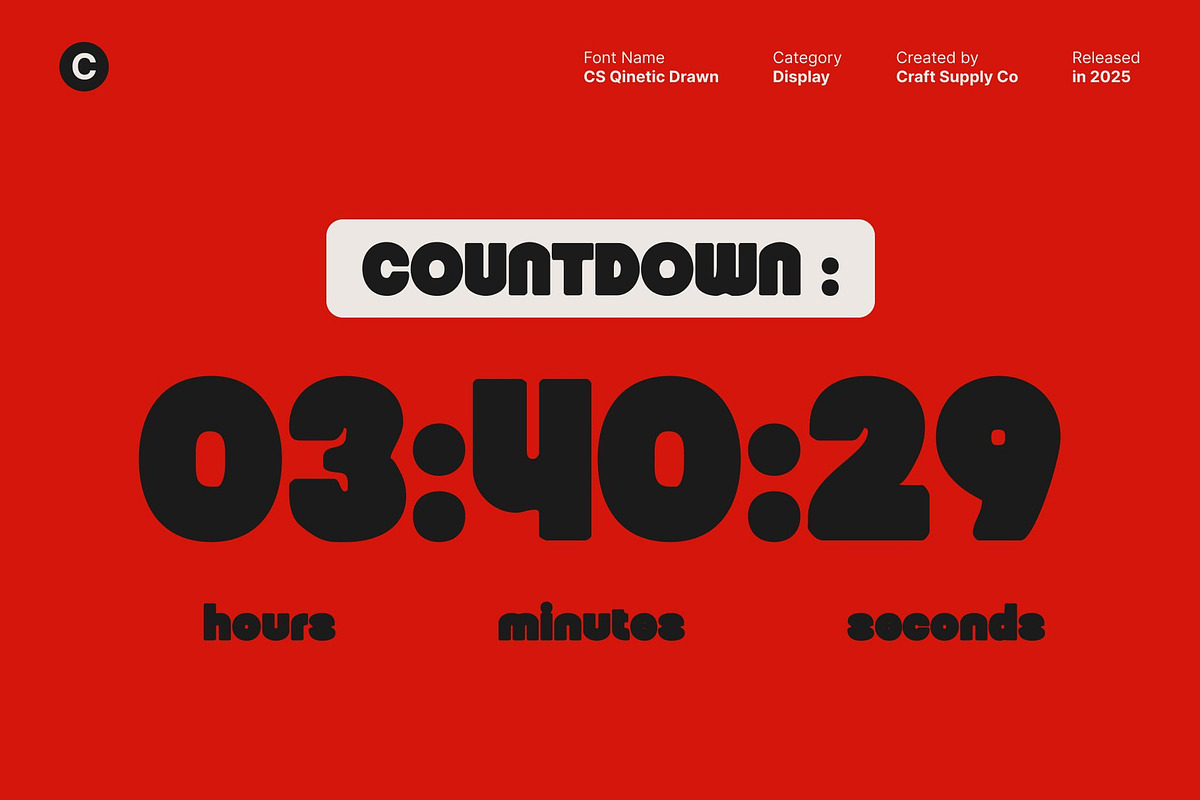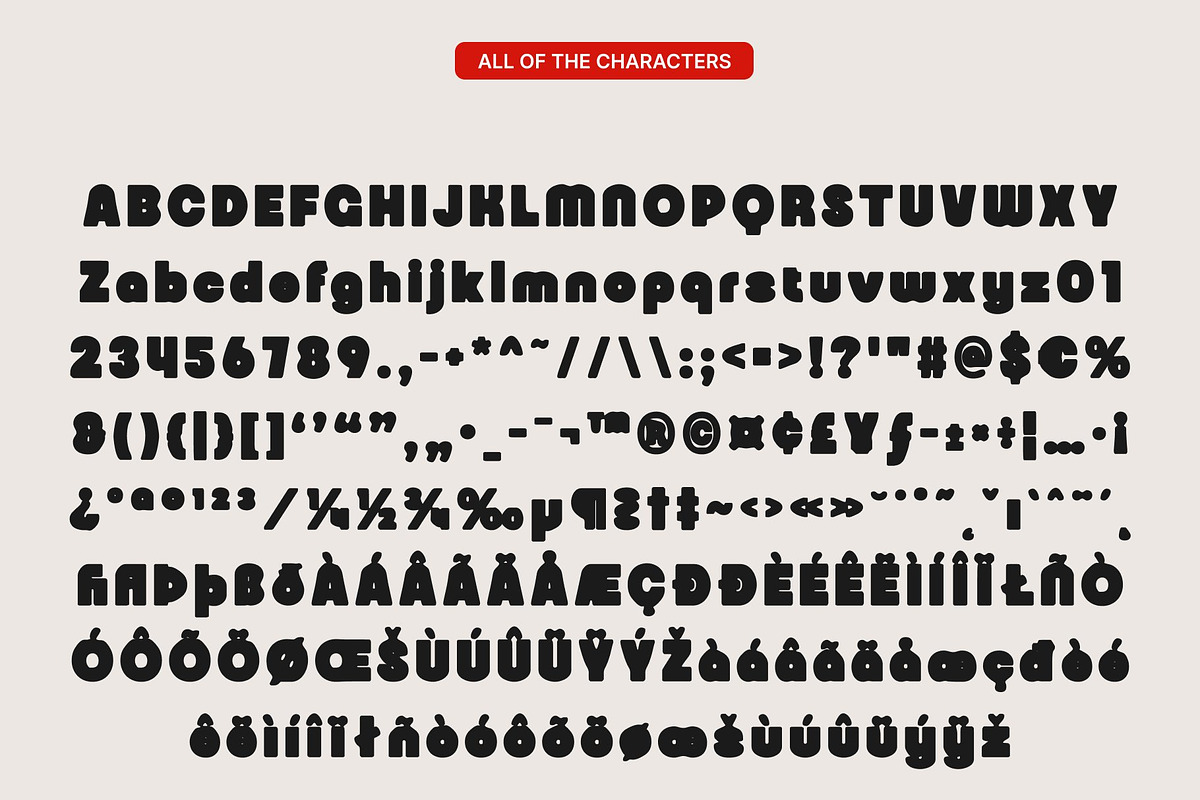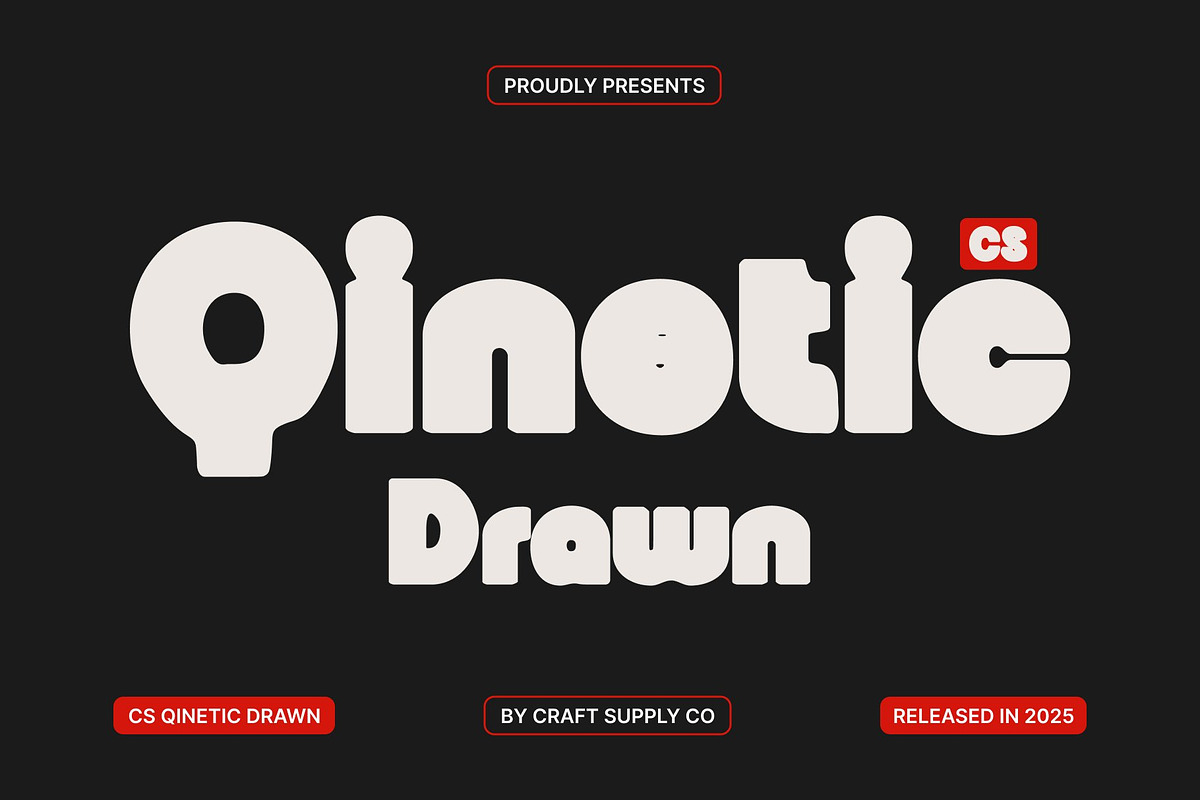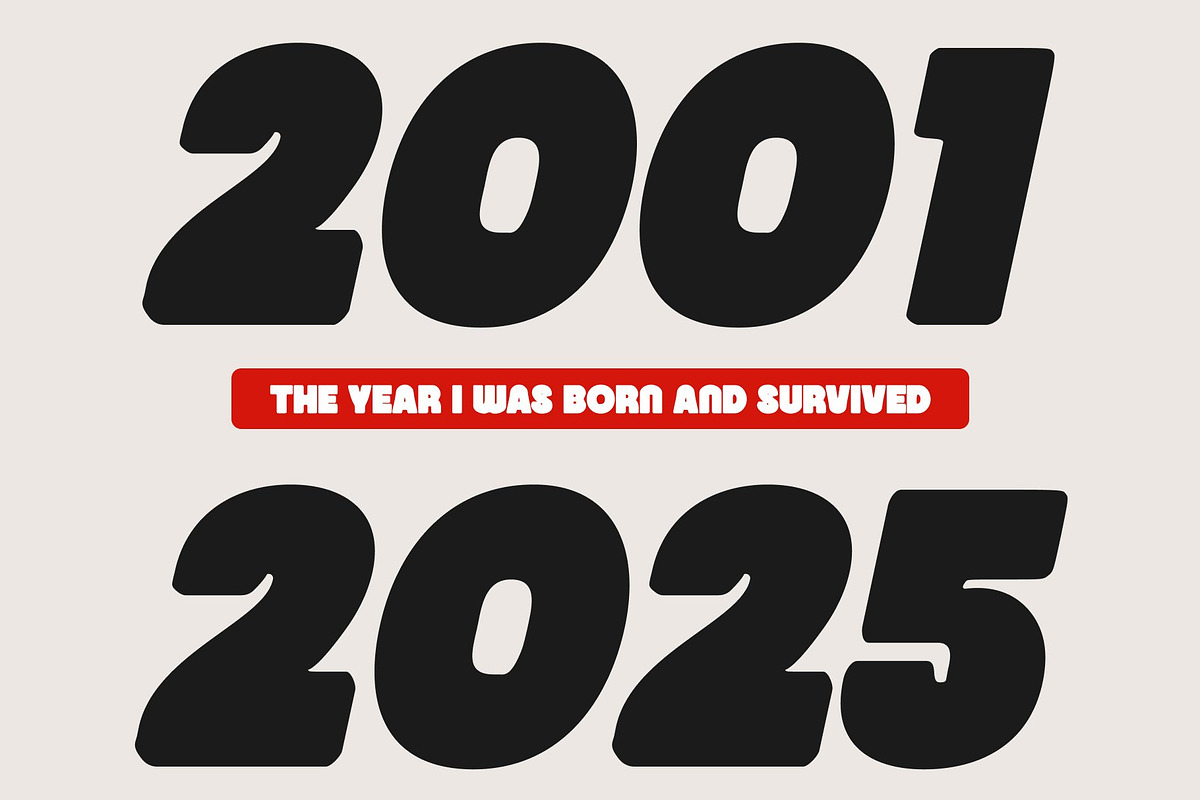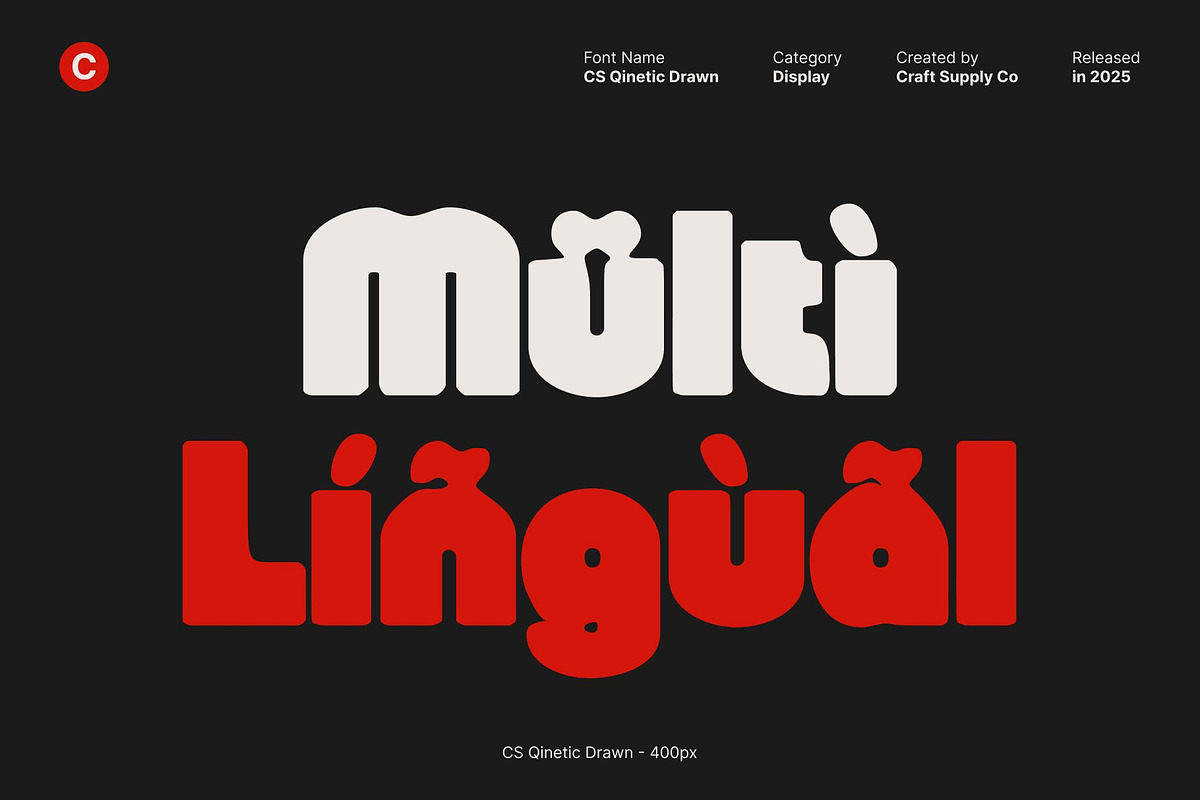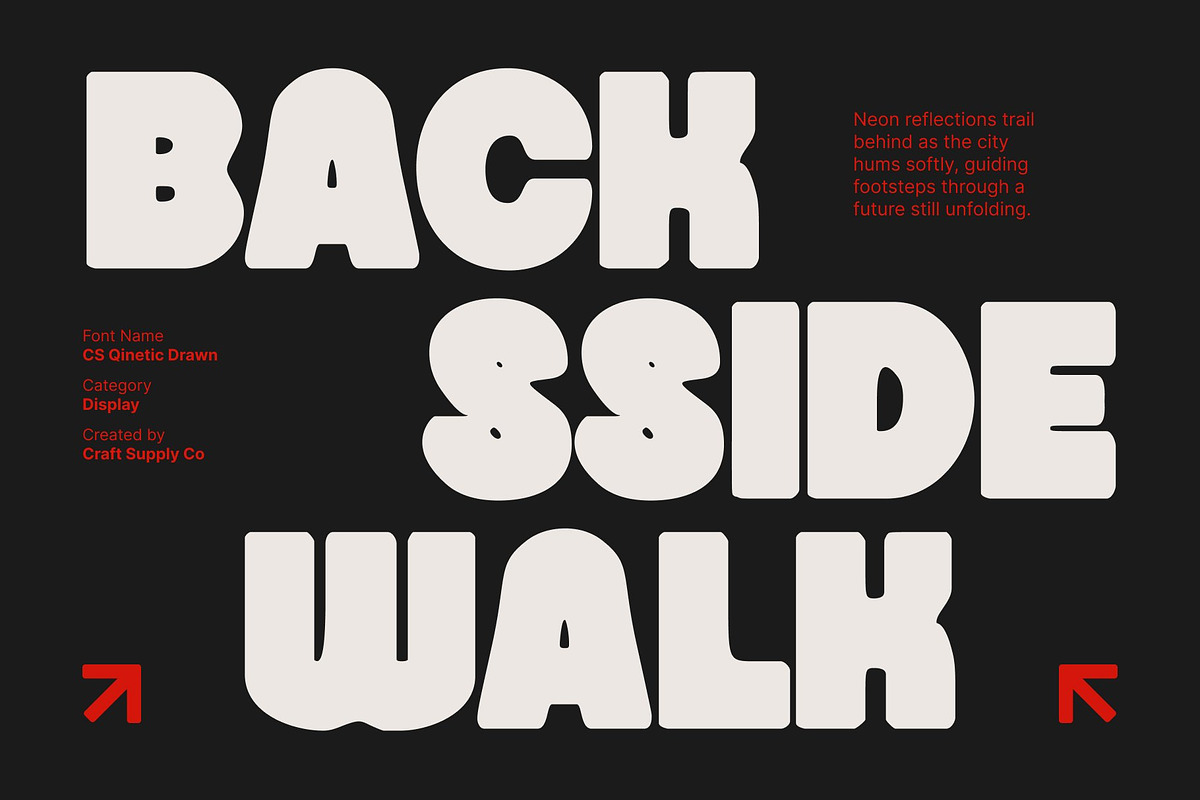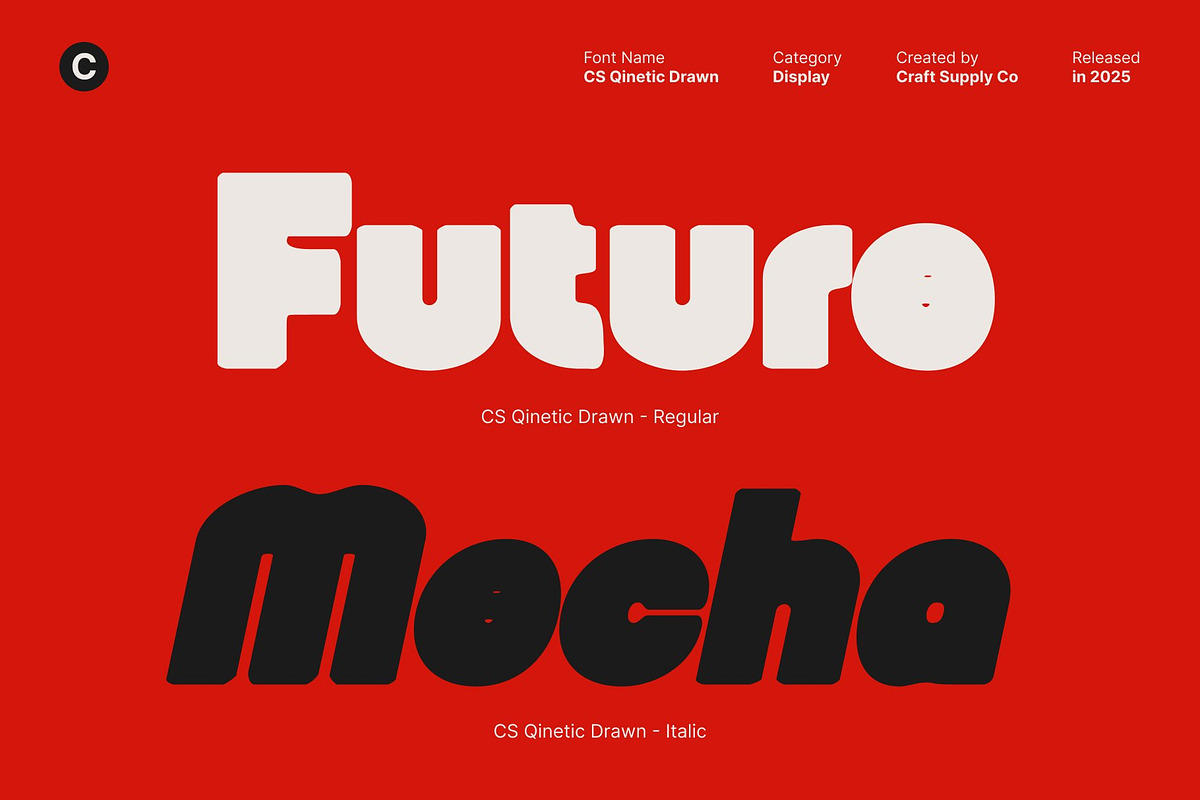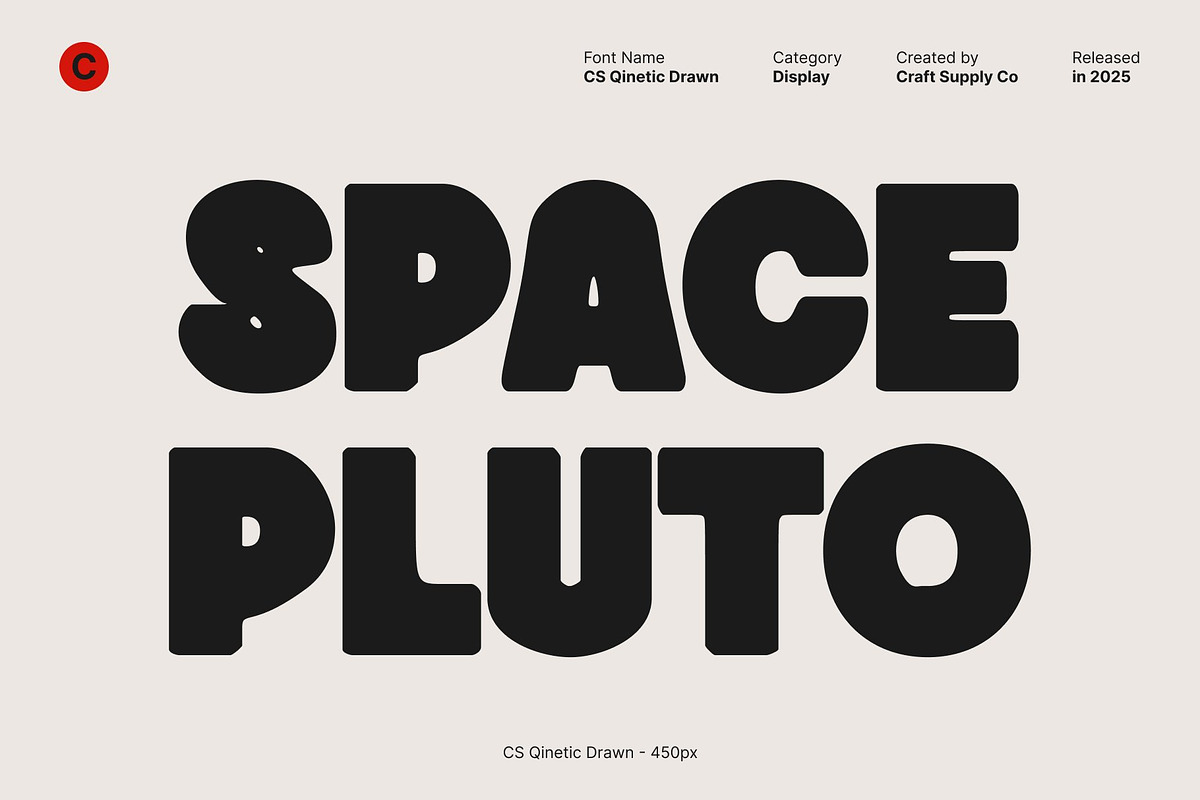
CS Qinetic Drawn
CS Qinetic Drawn – Bold Display Font with Dynamic Character
Powerful and Attention-Grabbing This is a bold display font designed to make a strong visual impact. Its thick, confident letterforms command attention, making it perfect for posters, headlines, logos, and branding that needs to stand out. Every character exudes strength and presence, ensuring your message is delivered with authority.
Hand-Drawn Texture for Unique Personality The drawn effect adds subtle irregularities and handcrafted charm to each letter, giving this font a distinctive, organic quality. This unique texture brings energy and character to the font, setting it apart from conventional bold display typefaces and adding a creative, dynamic edge.
Versatile for High-Impact Design This font is ideal for any project that demands boldness and style. From advertising campaigns to editorial layouts and digital graphics, the font’s strong, expressive forms ensure readability while creating a memorable visual impression. Its hand-drawn details enhance originality without compromising clarity.
Striking, Modern, and Memorable With its combination of solid structure and artistic drawn touches, this font balances power and creativity. It delivers a modern, dynamic aesthetic that elevates any design, making it a versatile choice for projects that aim to be both bold and visually captivating.
- CS Qinetic Drawn Regular
- CS Qinetic Drawn Italic